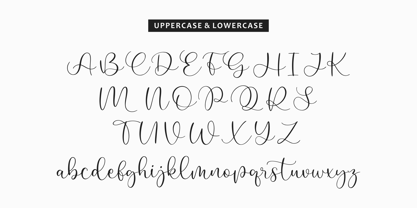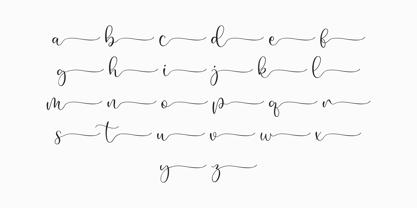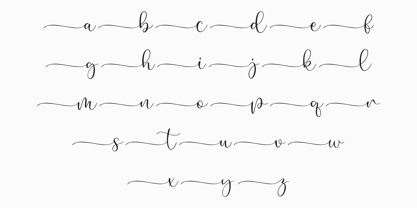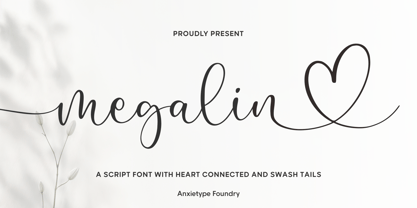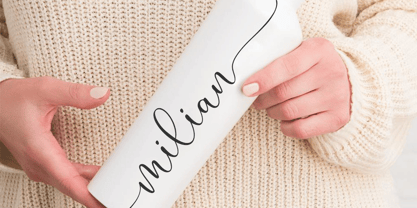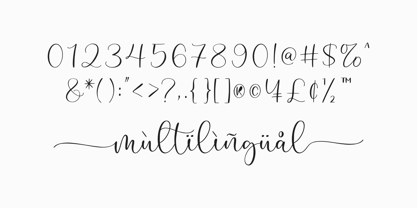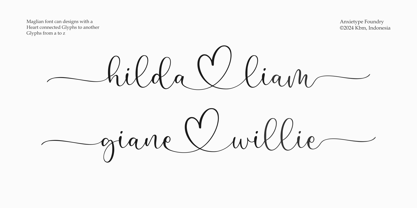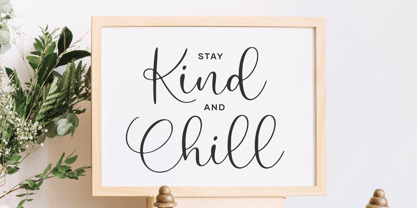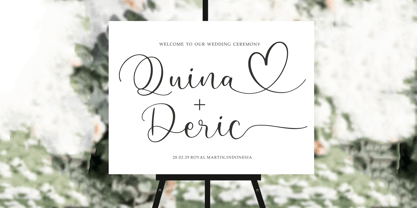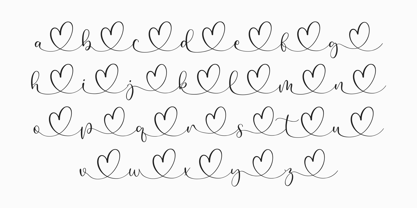
Megalin
by Anxietype Foundry
The Megalin Font Family was designed by Annas Rifky Anhar and published by Anxietype Foundry. Megalin contains 1 styles.
Introducing Megalin Font, By Anxietype Foundry a captivating and opulent Heart script font that will illuminate your creative projects. Constructed meticulously with a keen eye to detail, Megalin is set to become an indispensable part of your font repertoire. Its versatility can uplift any design endeavor whether it is for branding projects, crafting, logo design or invitations. More so, it undeniably brings a stroke of sophistication to romantic themes and creations. This makes Megalin Font the quintessential font choice for expressing your heartfelt sentiments, may it be for a wedding, a Valentine’s design or for a gift to someone dear to your heart. Expect a revitalized and striking aesthetic with this product.